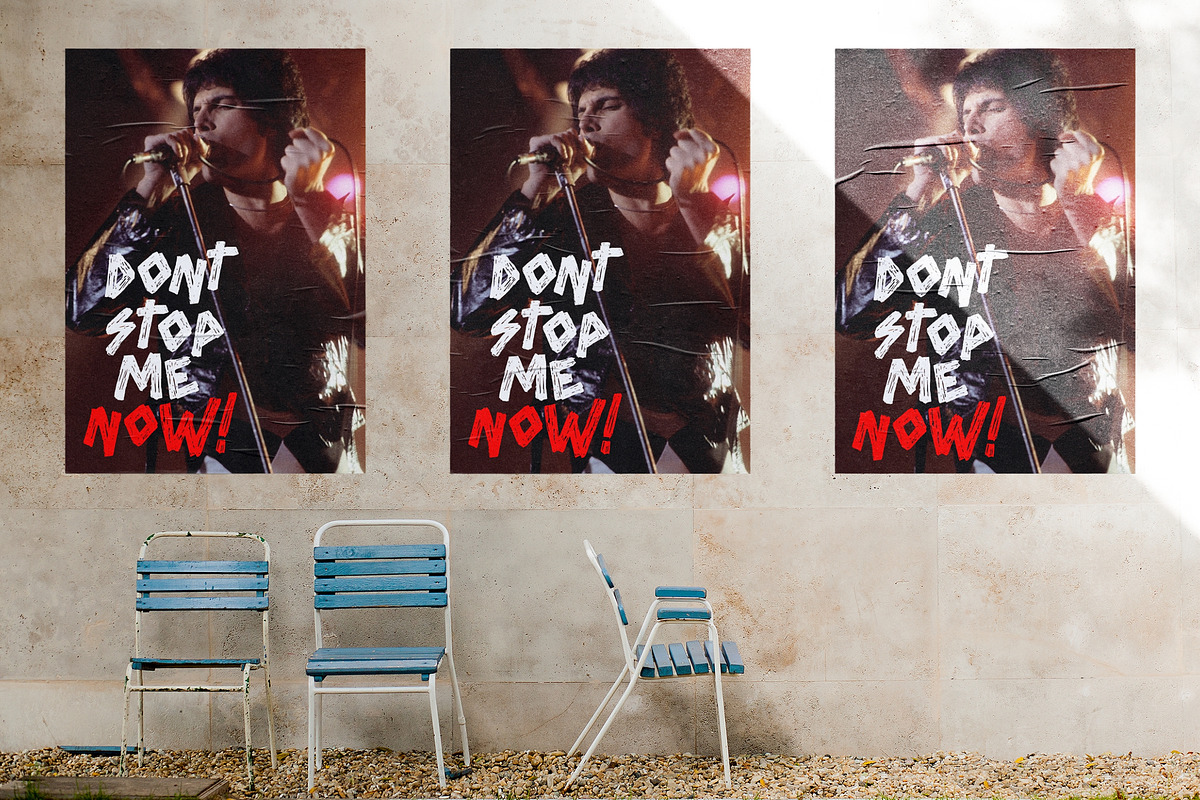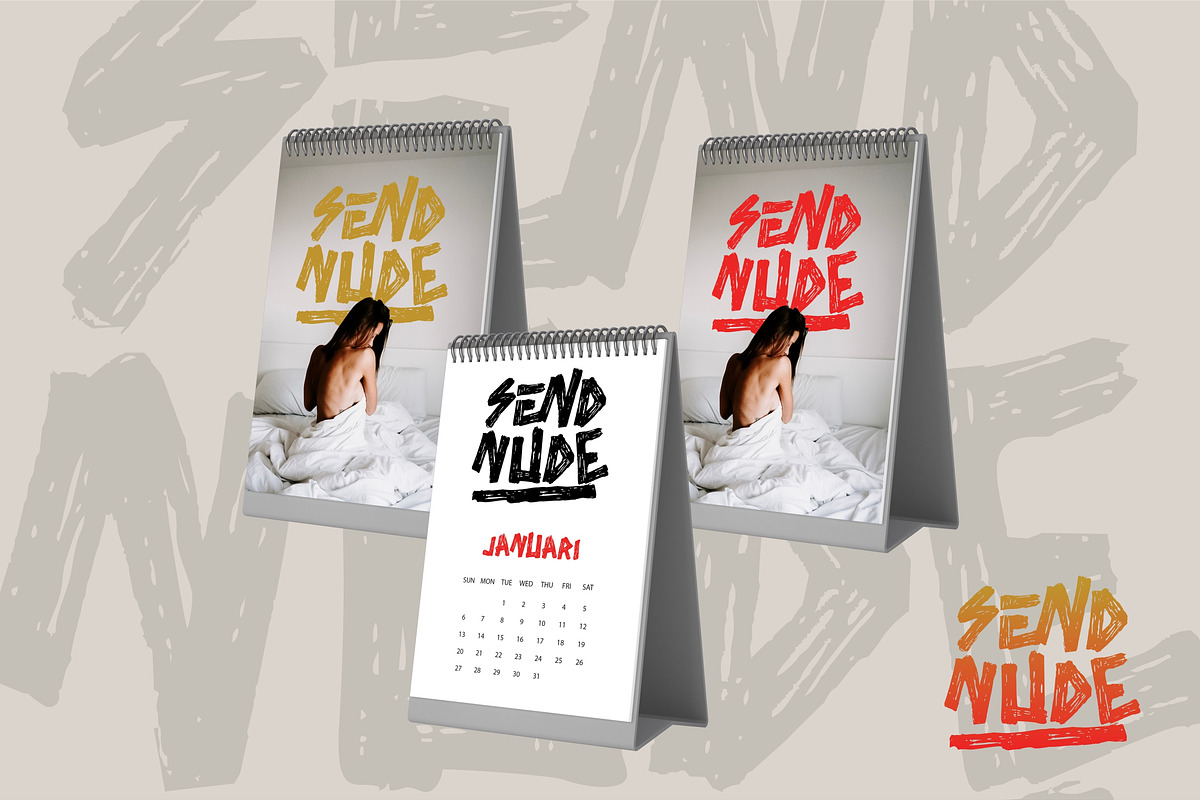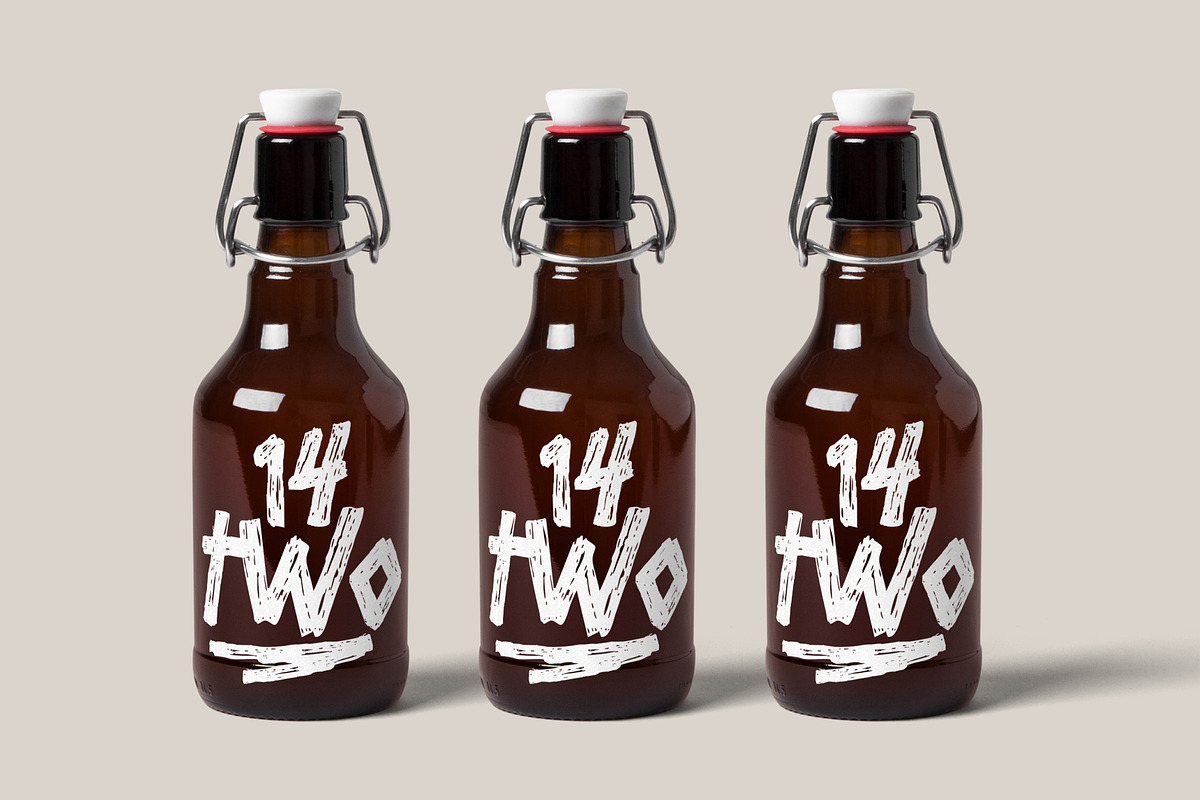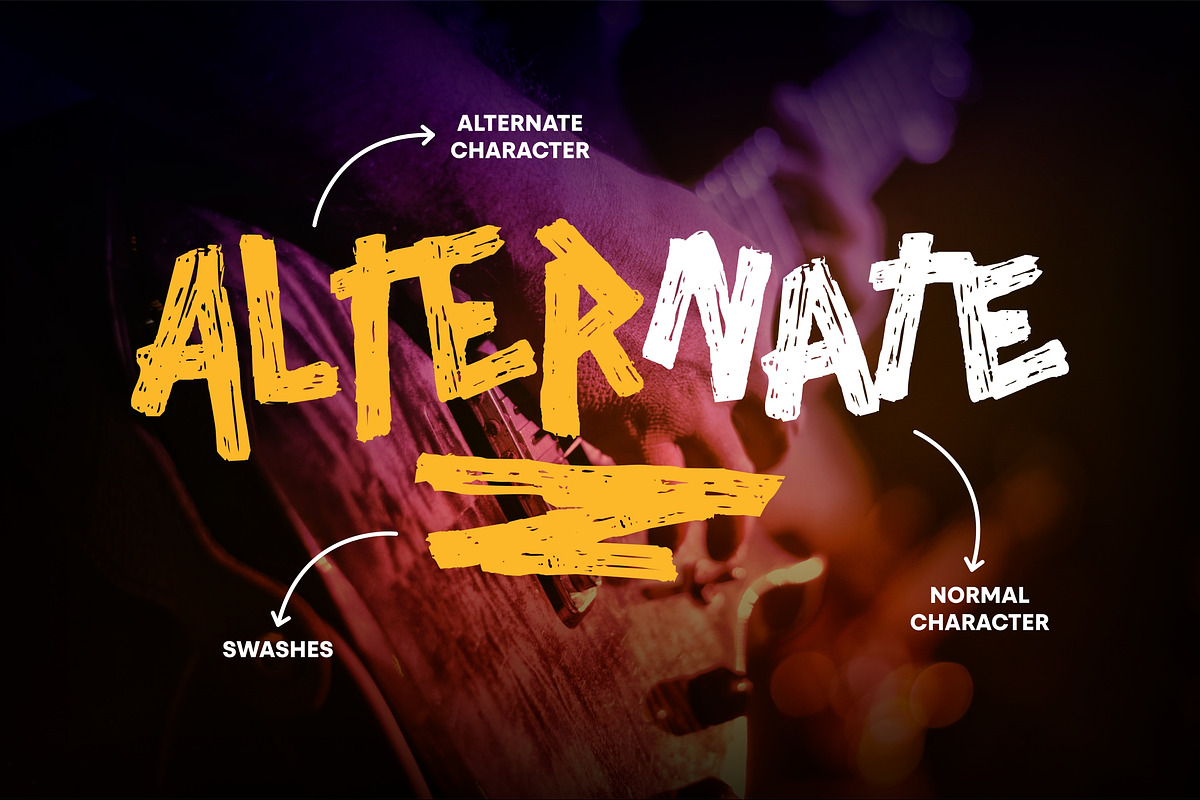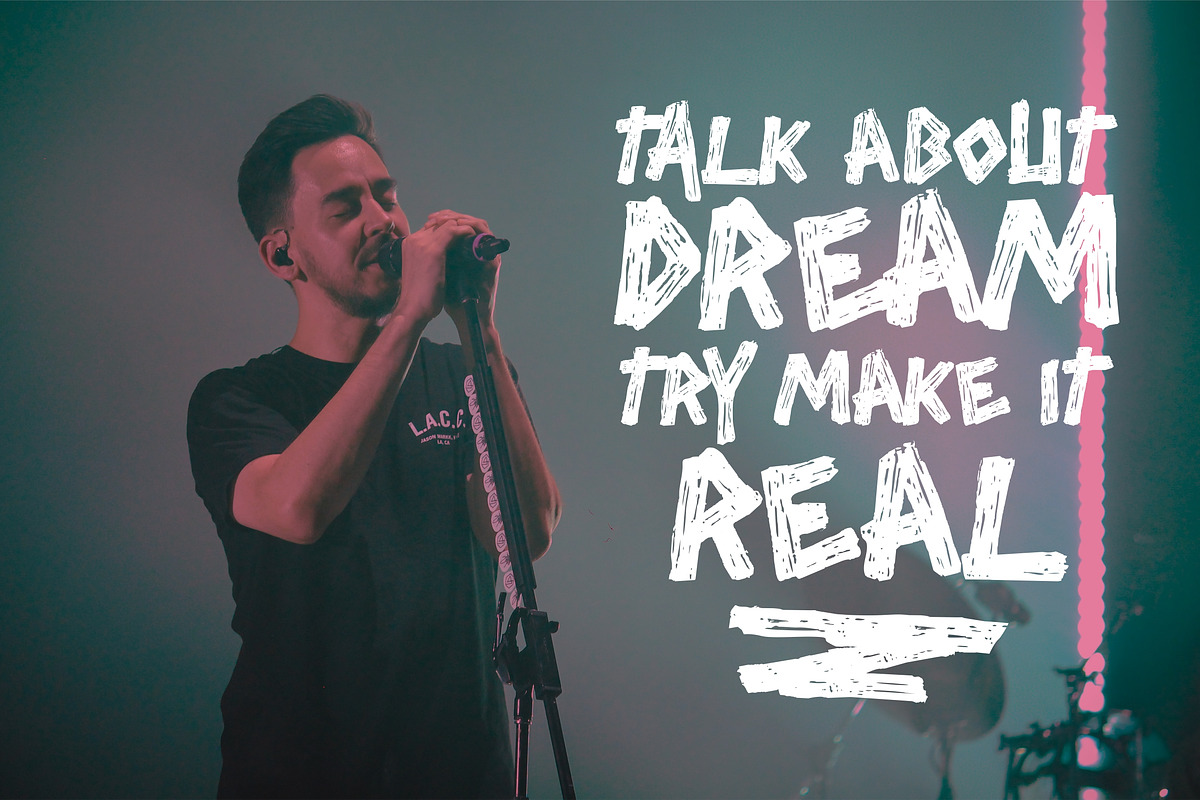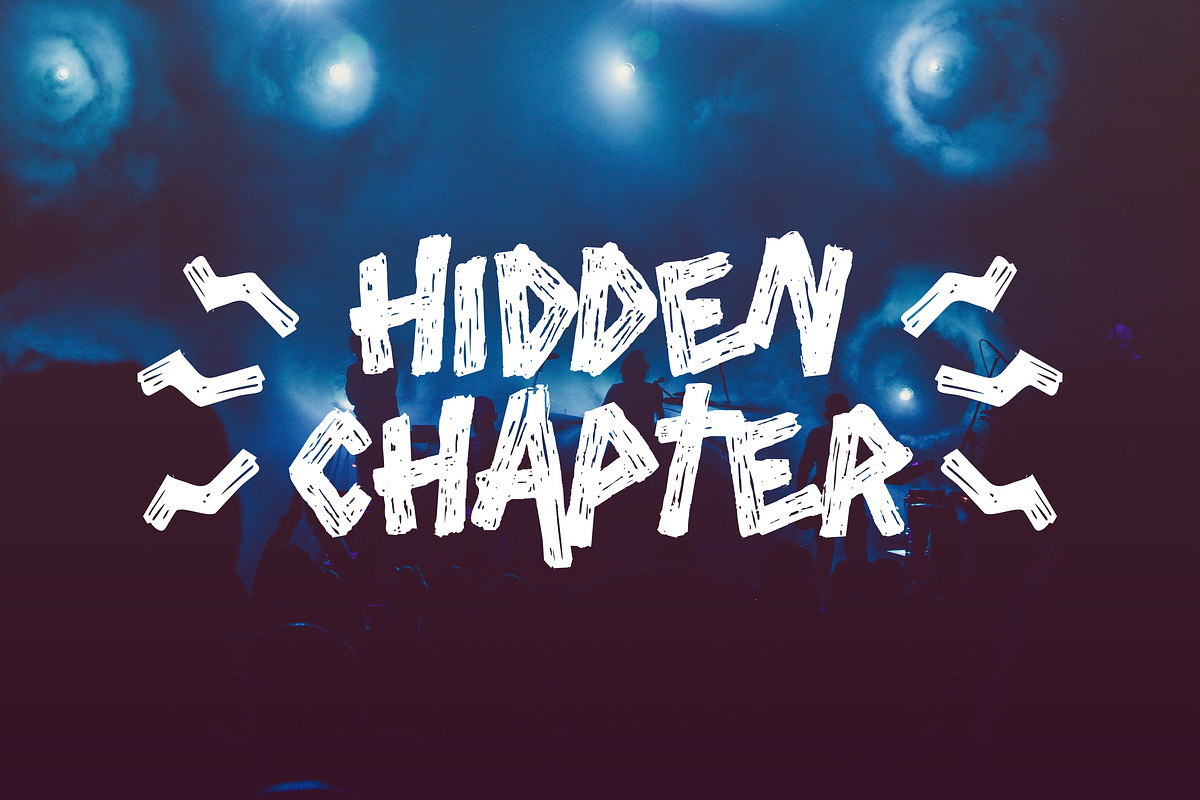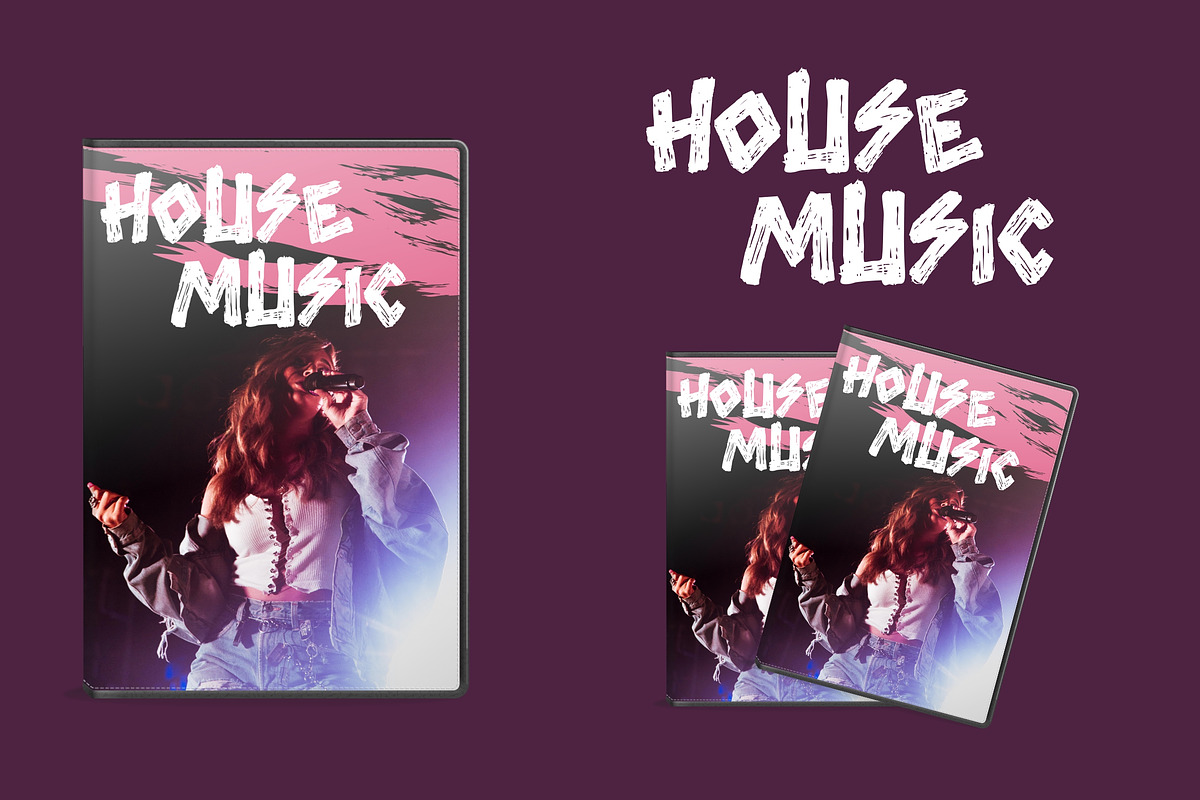
Borude - Textured Brush Font
"Borude" is a font display that is made by hand, inspired by classic posters.
comes with uppercase, lowercase, numerals, punctuations and so many variations on each character include OpenType alternates, common ligatures and also additional swash to let you customize your designs. Perfect to use for Logotype, Letterhead, Poster, Apparel Design, Label and etc.